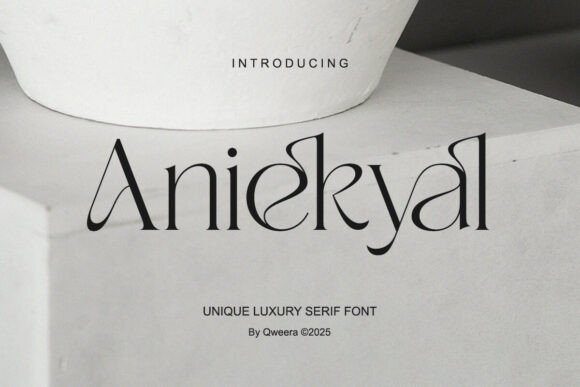
Discover the Elegance of Aniekyal Font
Remember that moment when you stumbled upon the perfect font, and your design project instantly transformed into a masterpiece? It’s a feeling every creative knows and loves. For those who crave that elusive combination of modern sophistication and timeless charm, we’re excited to introduce Aniekyal – a luxurious serif font that will elevate your designs to new heights.
Designed to deliver exclusivity and versatility, Aniekyal Font is perfect for luxury branding, fashion magazines, wedding stationery, logos, product packaging, and editorial layouts. Its unique letterforms, stylish alternates, and refined ligatures make it an invaluable asset for designers who demand the best. With Aniekyal Font, you can create bold, elegant typography compositions that leave a lasting impression.
- Unique Characteristics: The font features a unique blend of traditional and modern design elements, resulting in a distinctive aesthetic that can add a touch of sophistication to any design.
Review of Aniekyal Font
Overall, I think Aniekyal Font is a unique and interesting typeface that can be used in various design contexts. Here are some of its strengths: ✨
- Unconventional style: Aniekyal Font has a quirky, hand-drawn feel that can add a touch of personality to any design.
- Good legibility: Despite its unusual style, the font is still relatively easy to read, making it suitable for body text and other large blocks of text.
- Wide character set: Aniekyal Font includes a wide range of characters, including numerals, punctuation marks, and accented letters.
However, there are also some limitations to consider: ⚠️
- Limited font weights: Aniekyal Font is available in only a few font weights, which may limit its versatility in certain design contexts.
- No italics: Unfortunately, Aniekyal Font does not include italics or obliques, which may make it less suitable for certain types of text.
- Not ideal for small text: While Aniekyal Font is generally legible, it may not be the best choice for small text, as the characters can become difficult to read at very small sizes.
Overall, I think Aniekyal Font is a solid choice for designers looking to add a touch of personality to their work. While it may have some limitations, its unique style and good legibility make it a versatile and interesting typeface to work with.
Tips for Getting the Most Out of Aniekyal Font
Here are some tips for getting the most out of Aniekyal font:
- Use Aniekyal font for headings and titles to add a touch of elegance.
- Pair Aniekyal font with a clean and simple background to make your design stand out.
Aniekyal font is commonly used for:
- Formal event invitations and announcements.
Alternatives to Aniekyal Font for Designers
Aniekyal Font is a beautiful, elegant script font, but sometimes designers may need alternatives for specific projects. Here are a few options:
Carolyna Pro is a modern script font designed for elegant and sophisticated designs. It is ideal for wedding invitations, fashion branding, and luxury packaging. Compared to Aniekyal Font, Carolyna Pro has a more contemporary feel and a wider range of ligatures, making it perfect for longer text passages.
Great Vibes is a beautiful, cursive script font that works well for creative projects, such as magazine covers, posters, and social media graphics. It has a more relaxed, casual feel compared to Aniekyal Font, making it perfect for projects that require a friendly, approachable tone.
Pacifico is a modern script font that is perfect for designs that require a sense of relaxation and calmness. It is ideal for travel branding, wellness websites, and spa packaging. Compared to Aniekyal Font, Pacifico has a more laid-back feel and a wider range of weights, making it perfect for creating a cohesive brand identity.